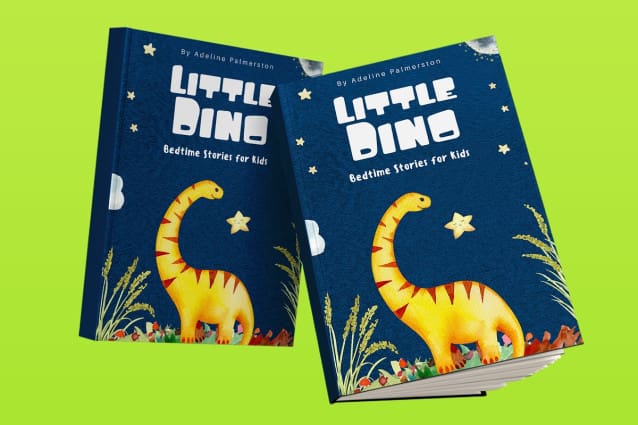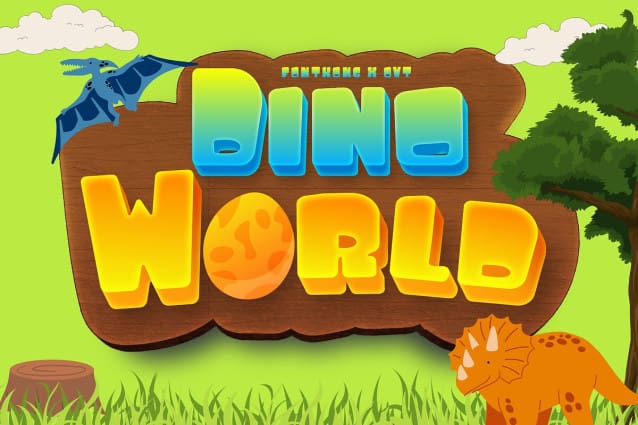
Dino World Font
Dino World Font, a modern display typeface that captures the whimsical essence of dinosaurs. Perfect for graphic designers, illustrators, and creatives looking to add a fun and prehistoric touch to their projects, Dino World offers a delightful blend of modern design and dino-themed charm.
Ideal for children’s books, packaging, posters, logos, and educational materials, DinoWorld’s bold and quirky characters bring a sense of excitement and imagination. Each letter is carefully crafted to ensure a joyful and engaging appearance, making your designs both captivating and memorable.
The “Dino World” font includes a comprehensive set of uppercase and lowercase letters, numbers, punctuation marks, and special characters. This versatile set allows for easy integration into various design applications, from playful branding to creative editorial layouts.
Bring the prehistoric era to life with Dino World, the modern display typeface that adds a dash of dino fun to any design.